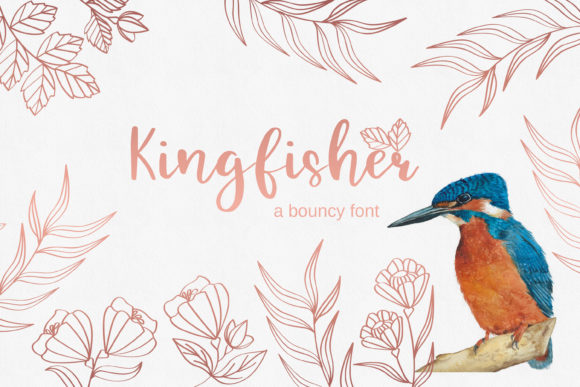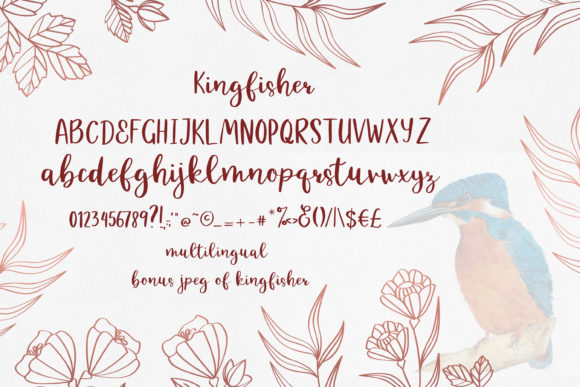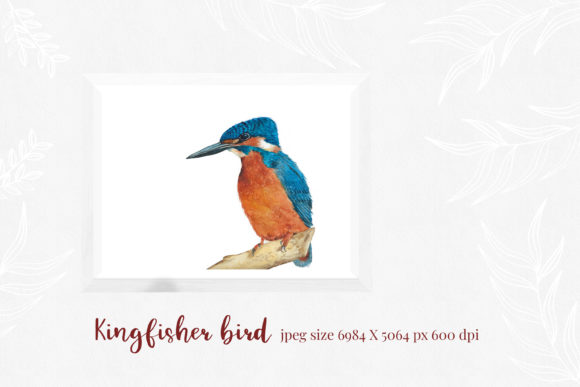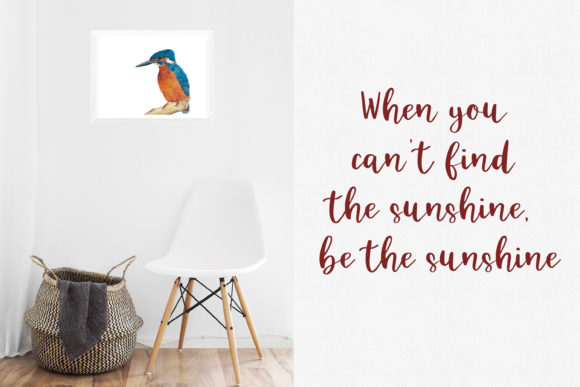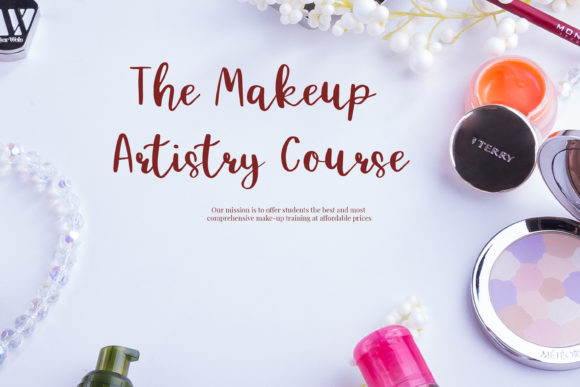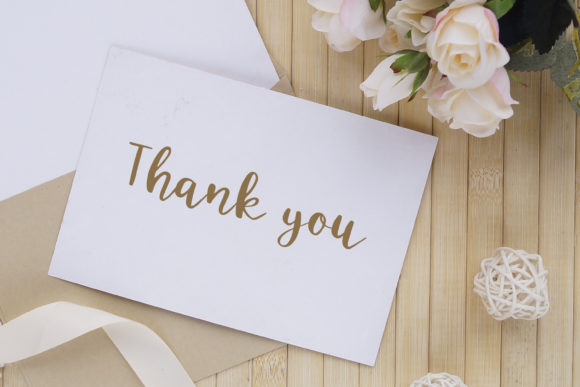
Kingfisher Font
About Kingfisher Font
Kingfisher is a friendly and unique script with an organic feel. It’s the perfect font for adding a creative feel to any crafting project!